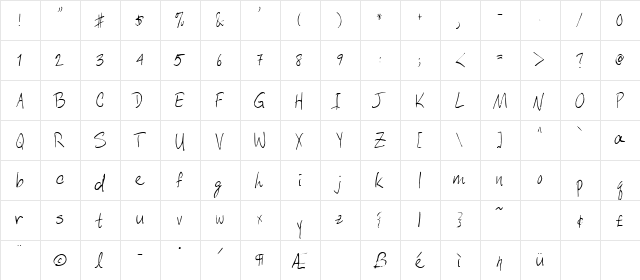
DCWri Regular Font Preview
DCWri Regular
Design Context for DCWri Typeface
DCWri takes a measured approach to typography — its balanced proportions and neutral character make it a reliable workhorse for both digital and print work.